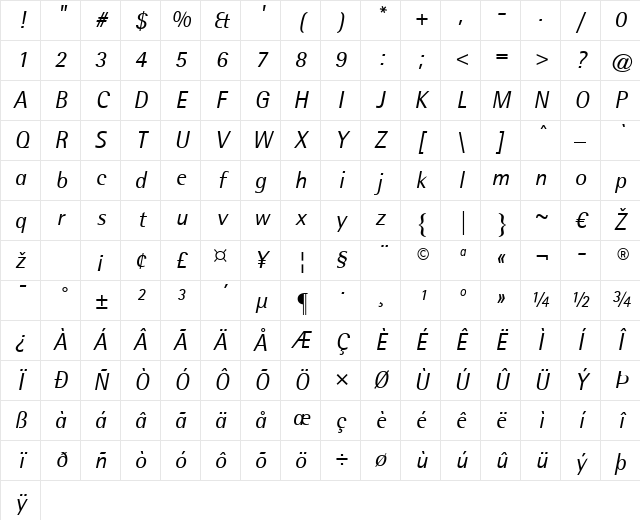
Complete Agfa Rotis Semisans Italic glyph index. Displaying only characters natively supported by Agfa Rotis Semisans Italic font.
Agfa Rotis Semisans is a composed and adaptable typeface that performs quietly and consistently across a wide range of design contexts. The slanted form adds forward momentum and visual energy.